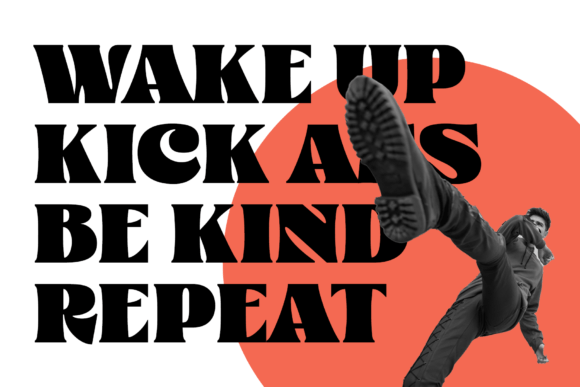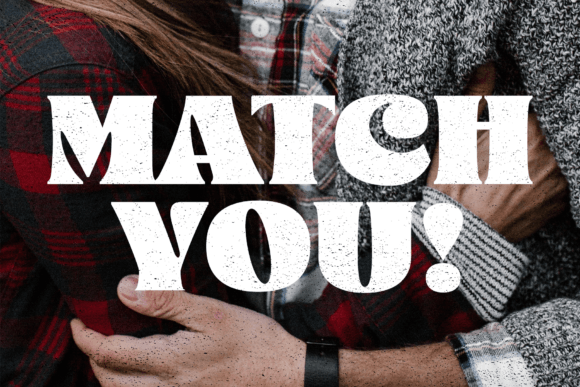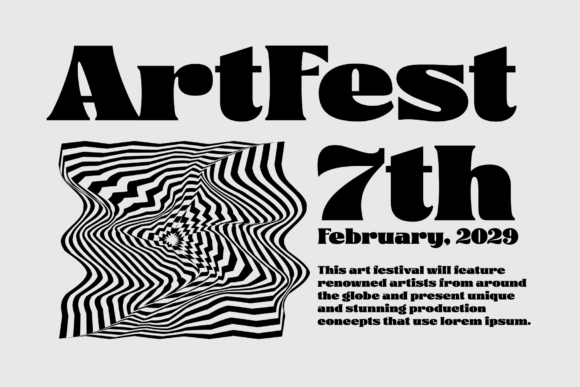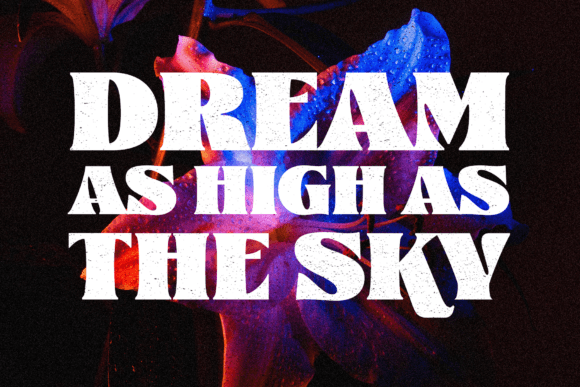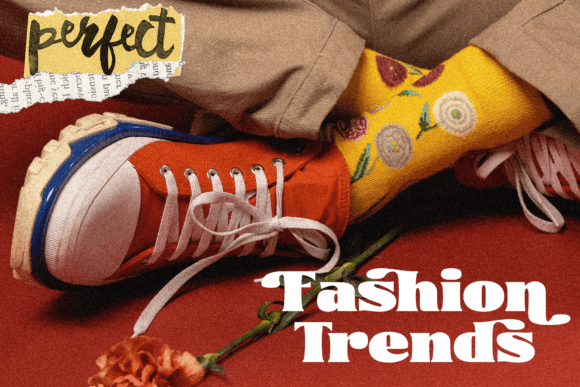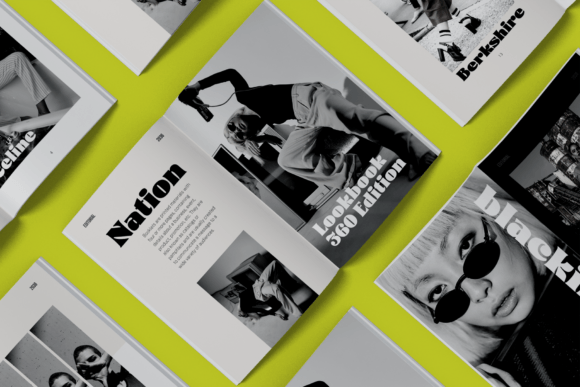
Introduction to Largest Font Font
Fonts play a crucial role in design, and the Largest Font font is a typeface that brings both character and versatility to any project. Whether you’re working on a branding project, a website, or a print design, the Largest Font font offers a unique style that can elevate your work.
| 📌 Font Name | Largest Font |
| 👤 Author | 50Fox |
Are you looking to make your headlines more eye-catching.
If so, Largest is perfect for you This typeface style stands out from the crowd, making it ideal for grabbing attention.
Key Features of Largest Font Font
Why Choose Largest Font Font?
The Largest Font font is more than just a typeface – it’s a design tool that helps you communicate your message with style and clarity. Its unique character set and versatile design make it suitable for a wide range of applications, from elegant invitations to bold headlines.
With its carefully crafted letterforms and balanced proportions, the Largest Font font ensures readability and visual appeal across all mediums.
What makes Largest Font font special?
The Largest Font font stands out with its unique design, exceptional readability, and versatility across various design applications.